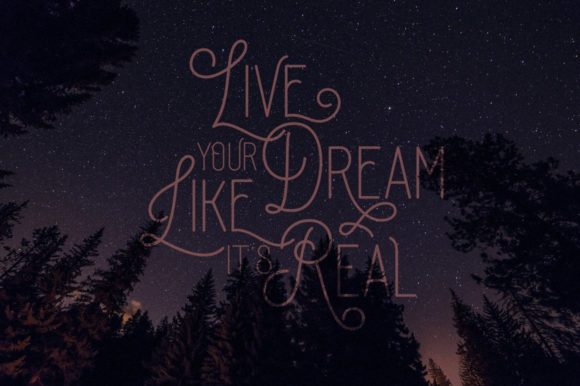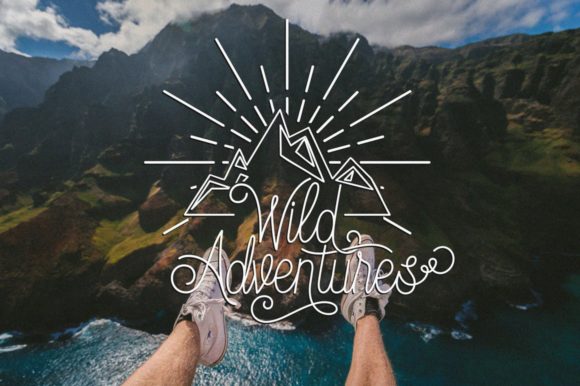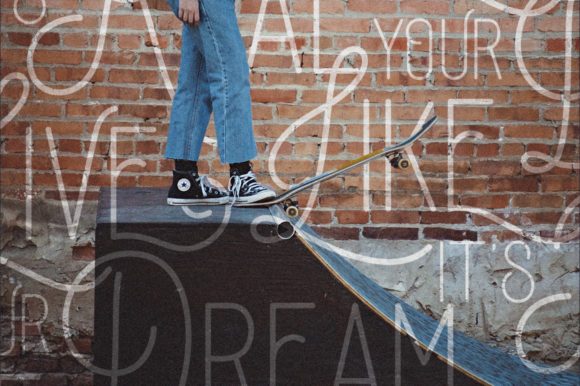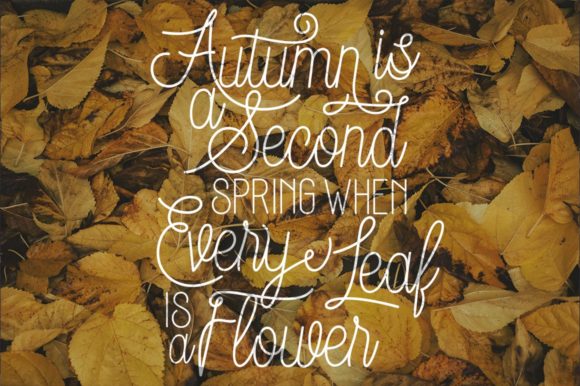
Dream Catchers Font
About Dream Catchers Font
Dream Catchers is a cute handwritten font. It combines a sans serif style with amazing script. It features beautiful camping extras that will take your crafting projects to the next level. It will elevate a wide range of design projects to the highest level, be it branding, headings, wedding designs, invitations, signatures, logos, labels, and much more!